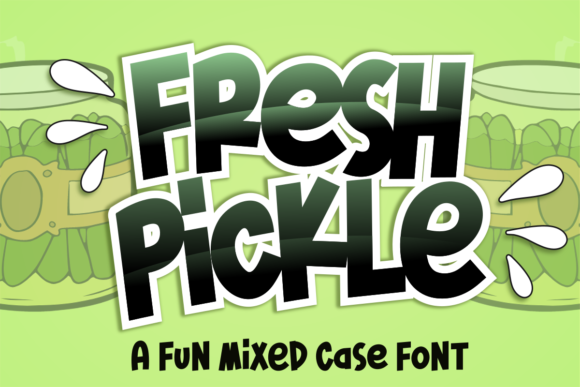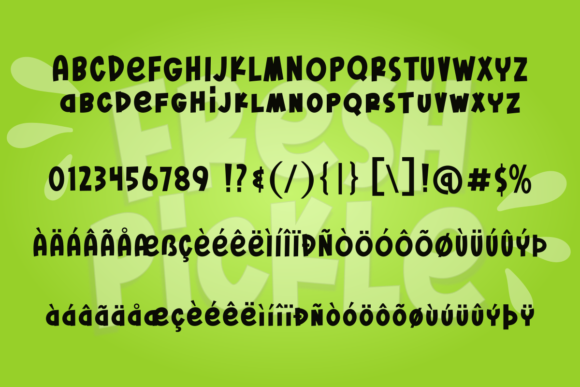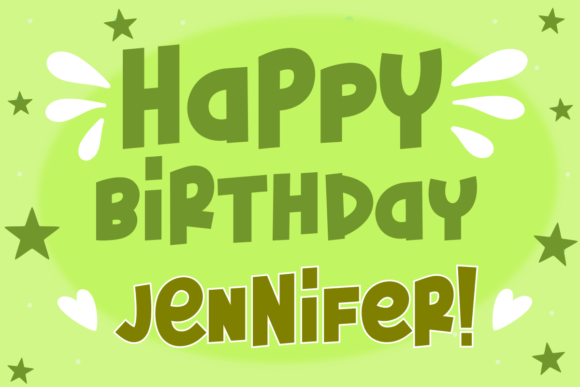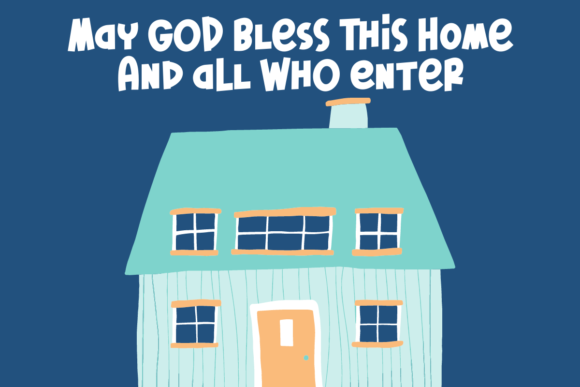
Fresh Pickle Font
About the Fresh Pickle Font
Discover the charm of Fresh Pickle Font. This font is a perfect blend of modern aesthetics and classic appeal. Fresh Pickle is a fun, chunky lettered and cartoon like display font. Playful and unique, this font will brighten up each of your designs!
Its bold, chunky style makes Fresh Pickle ideal for headlines, short impactful slogans, and playful branding elements such as logos or packaging for children’s products or quirky brands. It also works well in posters and social media graphics where a strong visual impact is needed. However, its playful nature and large x-height make it unsuitable for body text or UI elements requiring high readability.
Pairing Fresh Pickle effectively requires considering its cartoonish energy. A clean sans-serif like Open Sans or a more geometric font like Futura can provide a strong contrast and enhance readability when used for supporting text. For a softer touch, a delicate script font could be considered for smaller details.
The overall personality is undeniably playful and friendly, brimming with a childlike energy and charm. It’s best suited for projects that need a touch of fun and approachability rather than sophistication or seriousness.
Fresh Pickle Font Usage Examples
Fresh Pickle Font Example